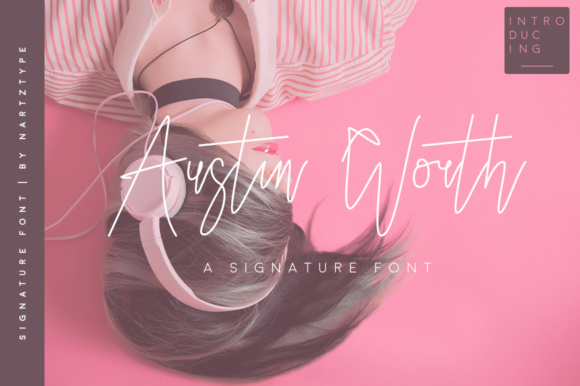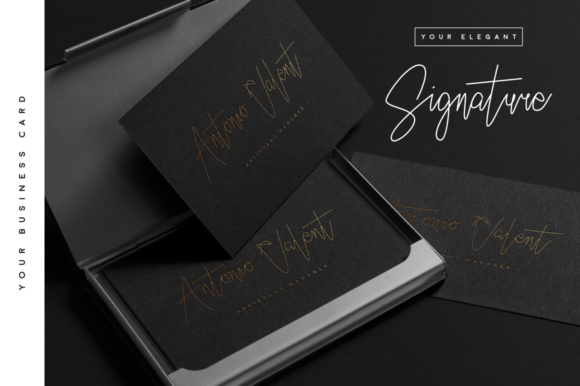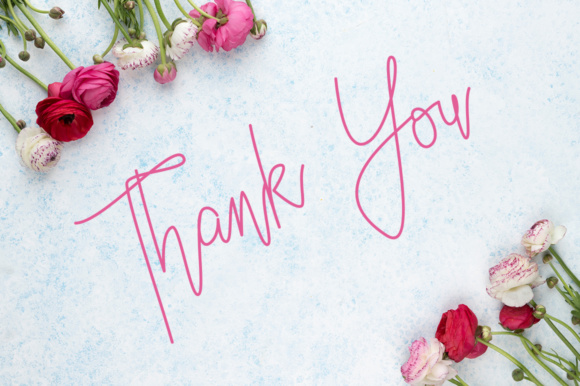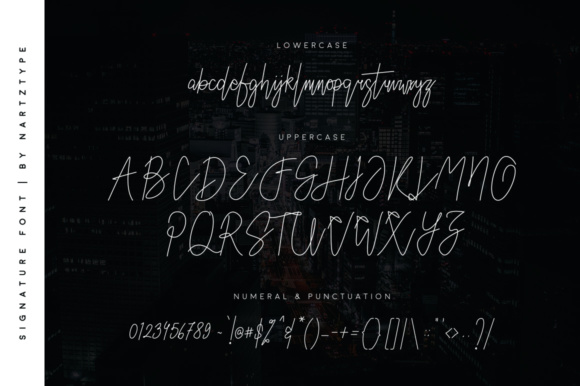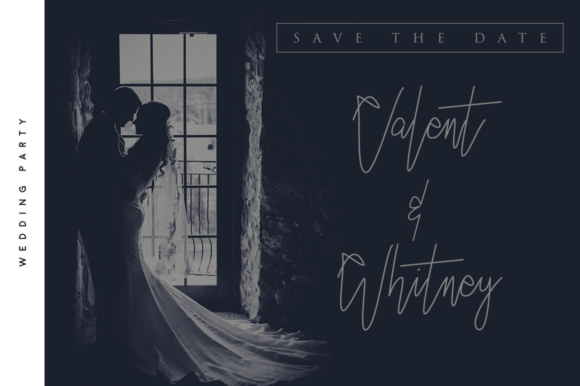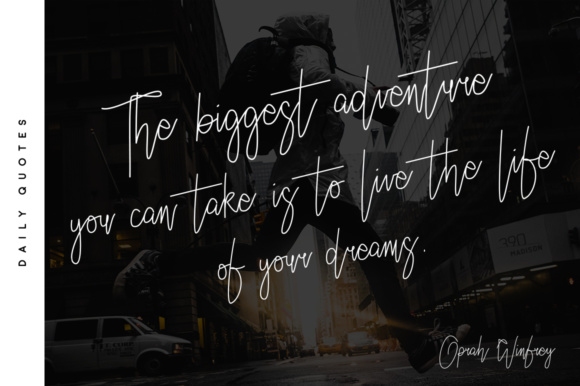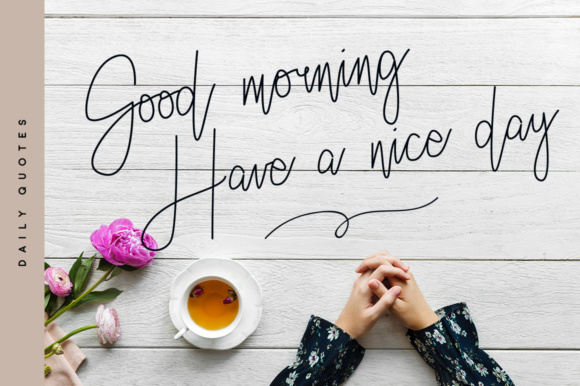
Austin Worth Font
The Austin Worth is a handwritten signature typeface which will give your design a beautiful charm and elegance. You can use it for branding projects, home appliances designs, product packaging, book covers, magazines, and more!